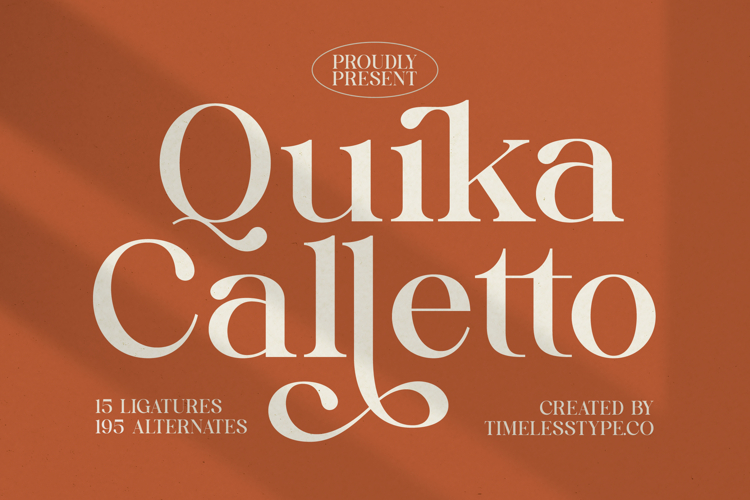
Quika Calletto - Modern Serif Font
Elevate your designs with the undeniable elegance of Quika Calletto - Modern Serif Font. This exquisite typeface marries traditional serif charm with a contemporary edge, offering a truly sophisticated aesthetic. Its high-contrast strokes and refined curves command attention, ensuring your message is conveyed with both authority and grace. Quika Calletto - Modern Serif Font is meticulously crafted to impart a sense of timeless luxury to any project.
Unlock unparalleled creative potential with Quika Calletto - Modern Serif Font's rich feature set. Boasting 15 ligatures and an impressive 195 alternates, this font provides extensive opportunities for customization and unique typographic expressions. These thoughtfully designed variations allow for seamless visual flow and the creation of truly distinctive headlines, logotypes, and display text that captivate and engage.